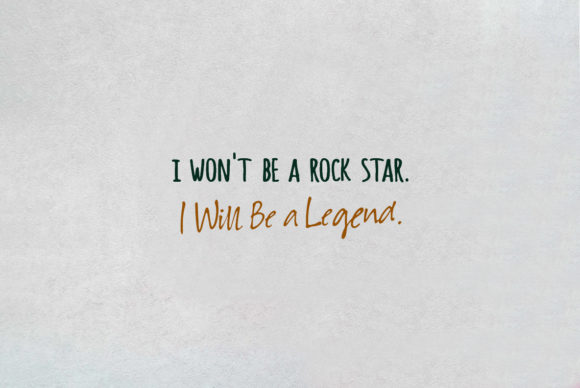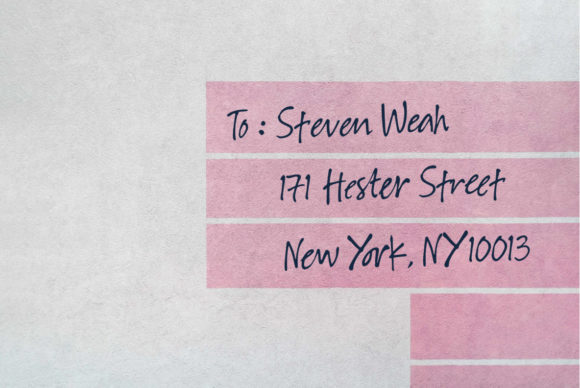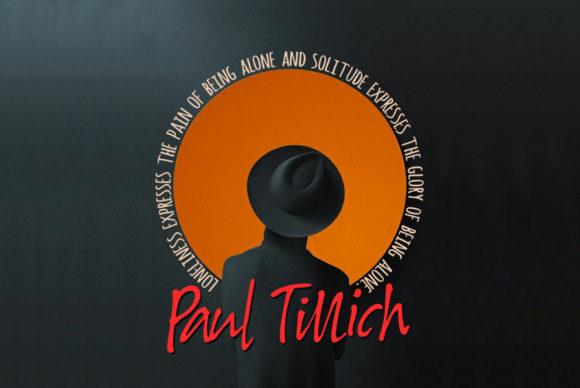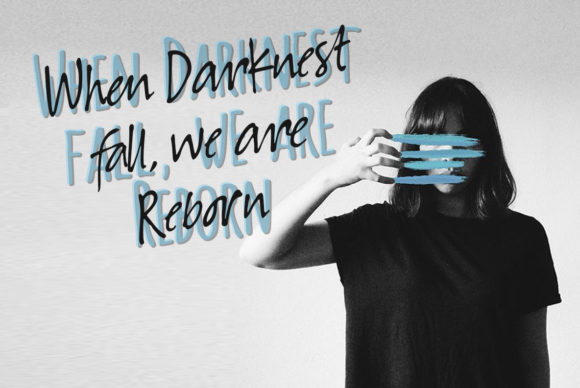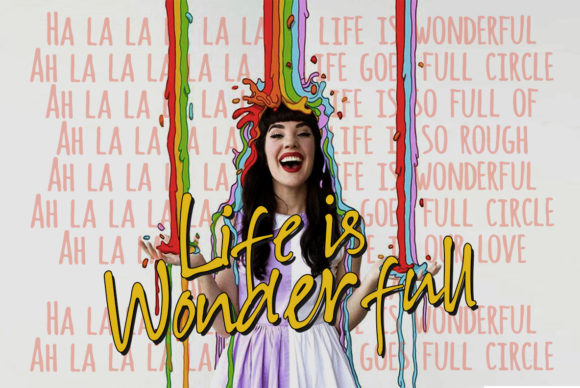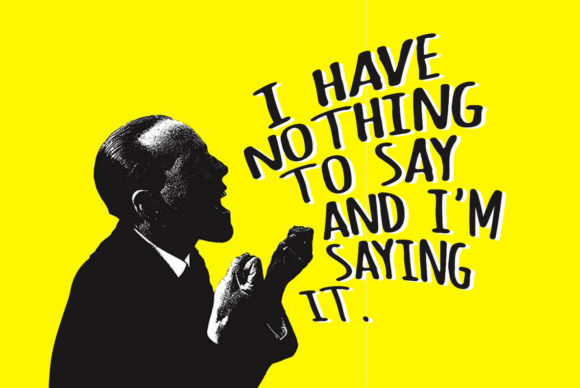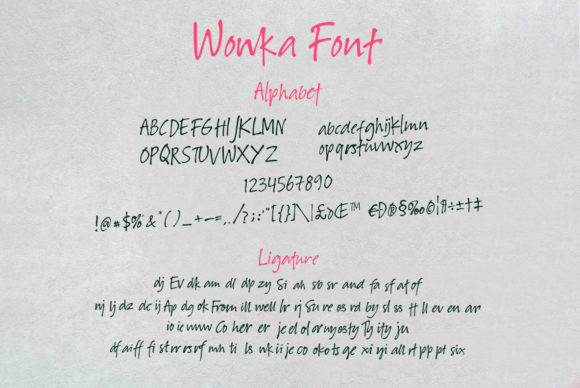
Winkie Wonka Duo Font
About Winkie Wonka Duo Font
The Winkie Wonka is a handwritten font duo with a personal charm. With its quick dry strokes and signature style, it’s perfect for branding projects, homeware designs, product packaging – or simply as a stylish text overlay to any background image.